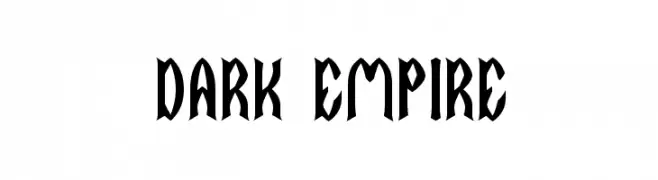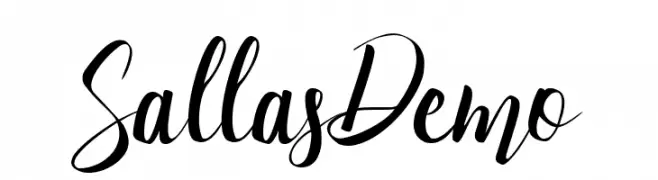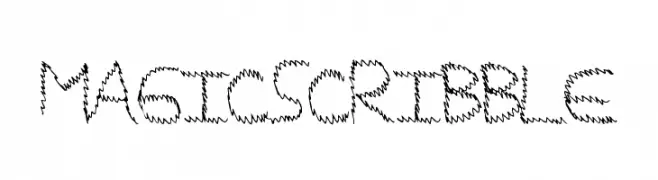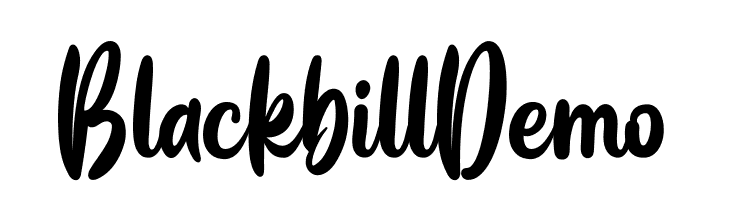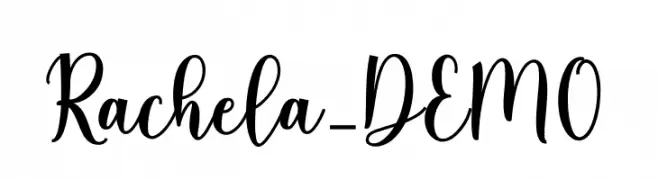
A hand-drawn, brush-style font with asymmetrical and dynamic characters.
A decorative collection of themed symbols and numbers in bold, circular designs.
A decorative outline font with a playful and creative style.
A futuristic, italicized font with a gradient effect and striped pattern.
A bold, gothic-inspired font with sharp, angular lines and a dramatic presence.
A modern, elegant script font with high contrast and flowing strokes.
A refined, elegant serif font with a light, italicized style.
A playful, scribble-style font with zigzag strokes and a dynamic appearance.